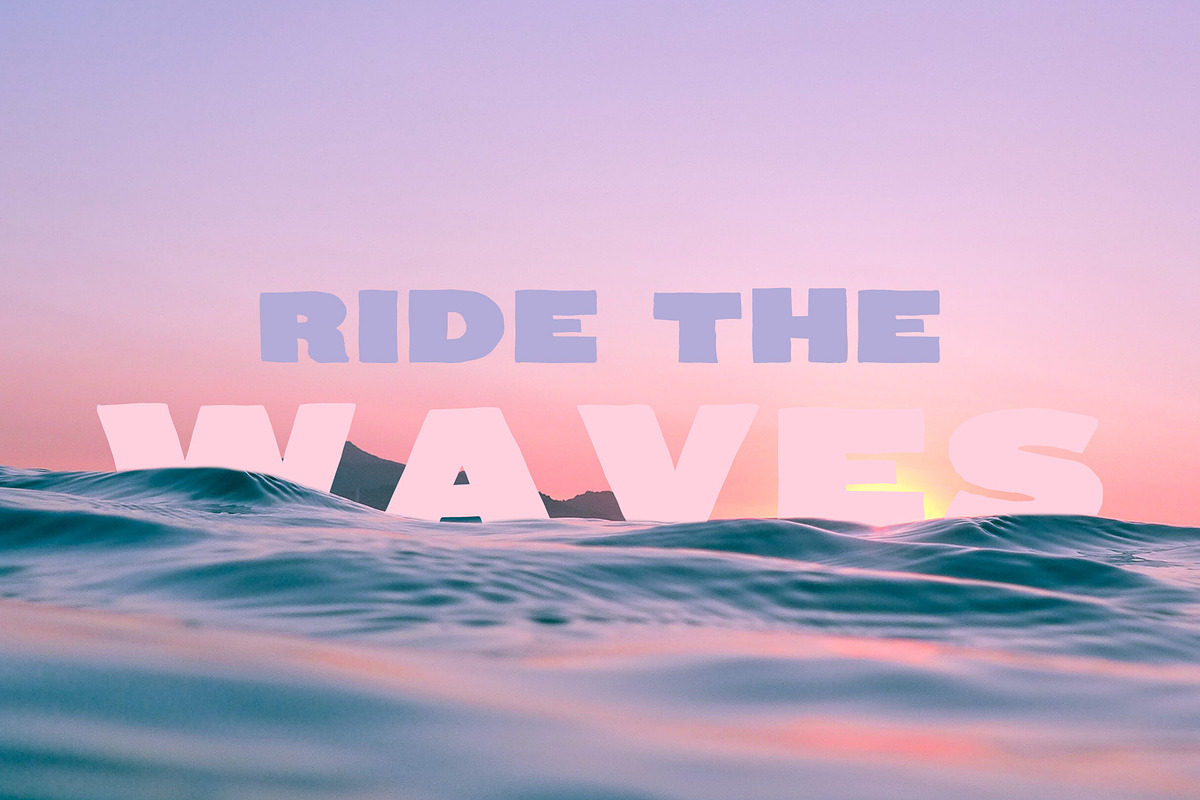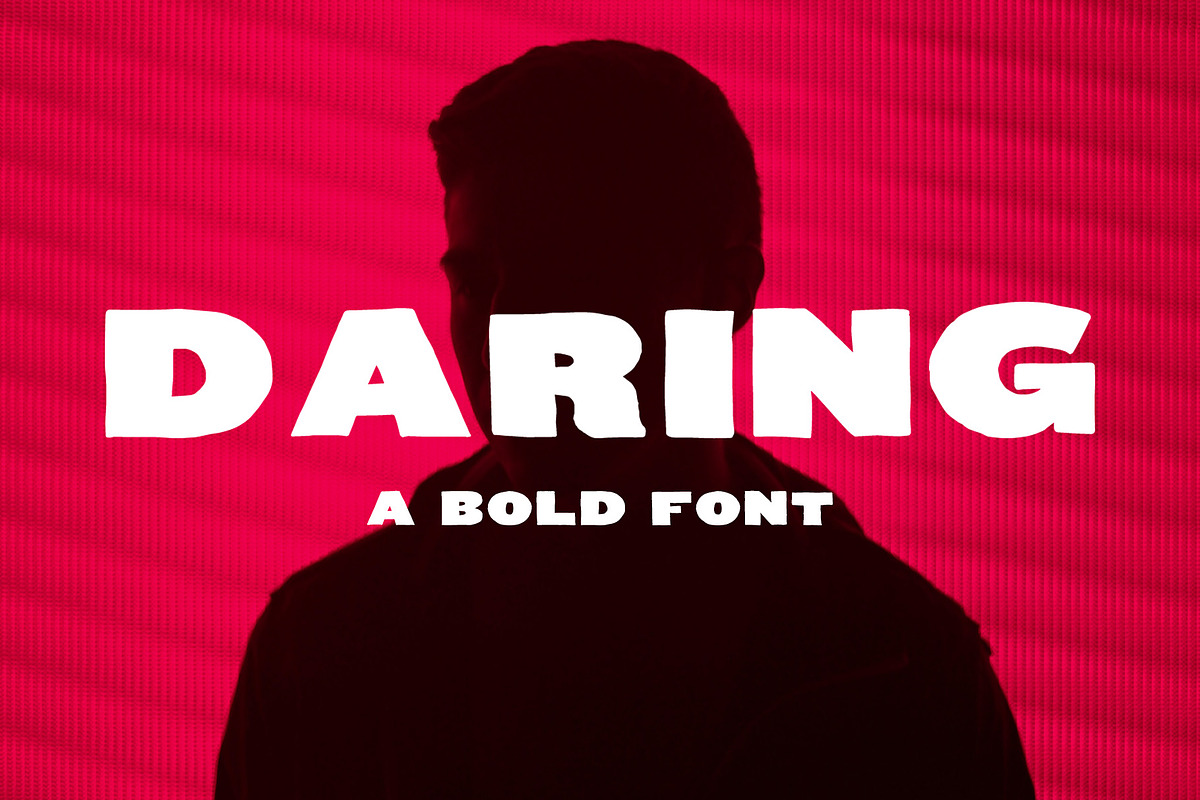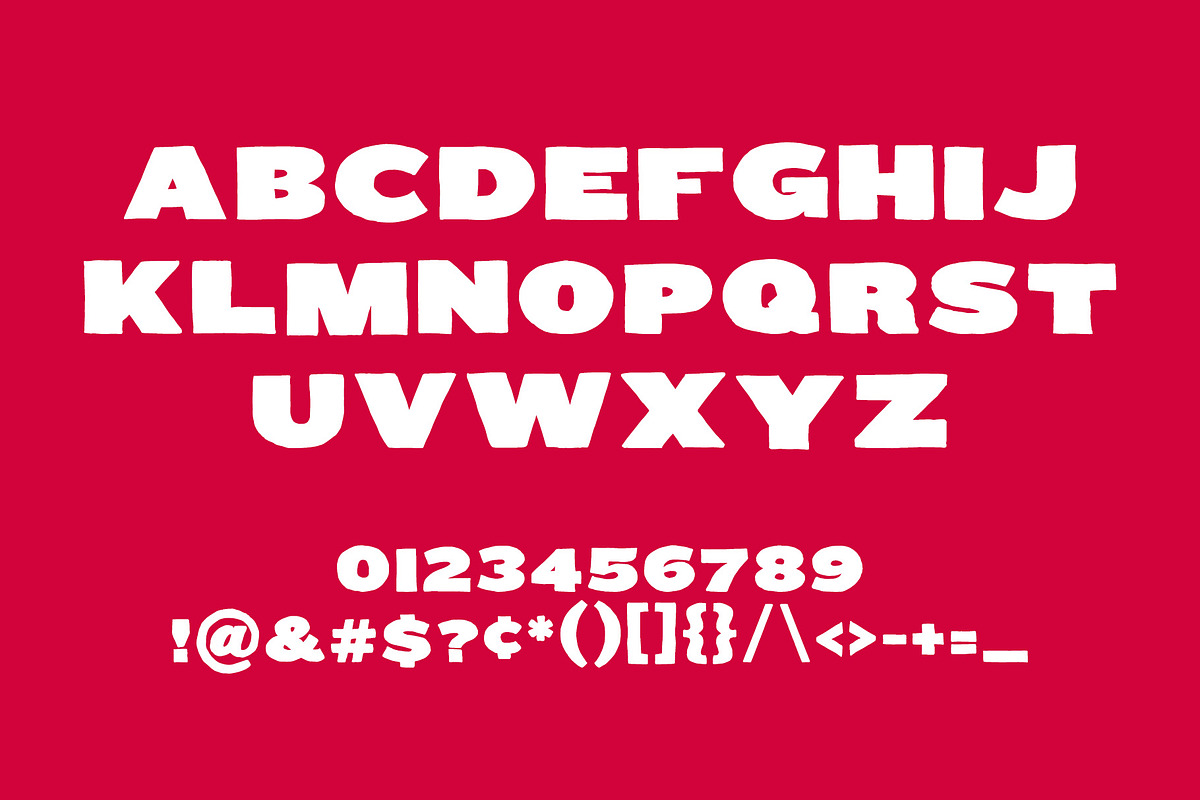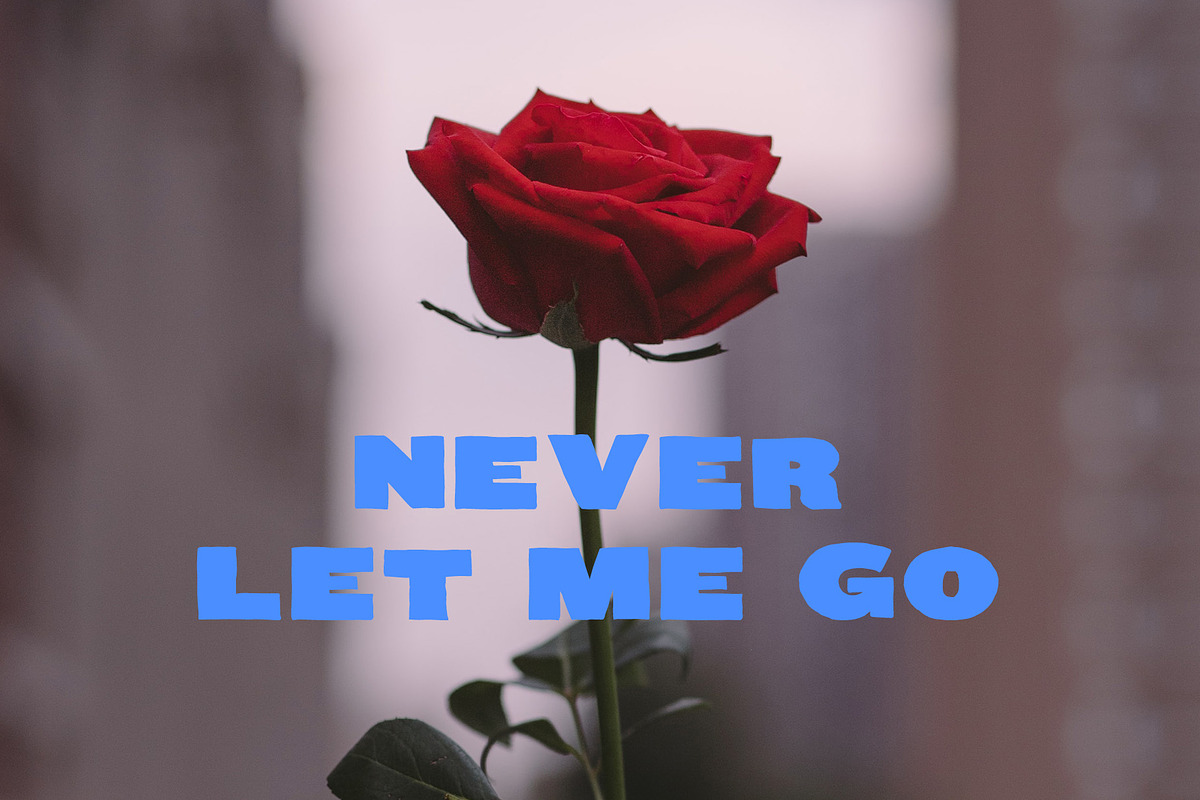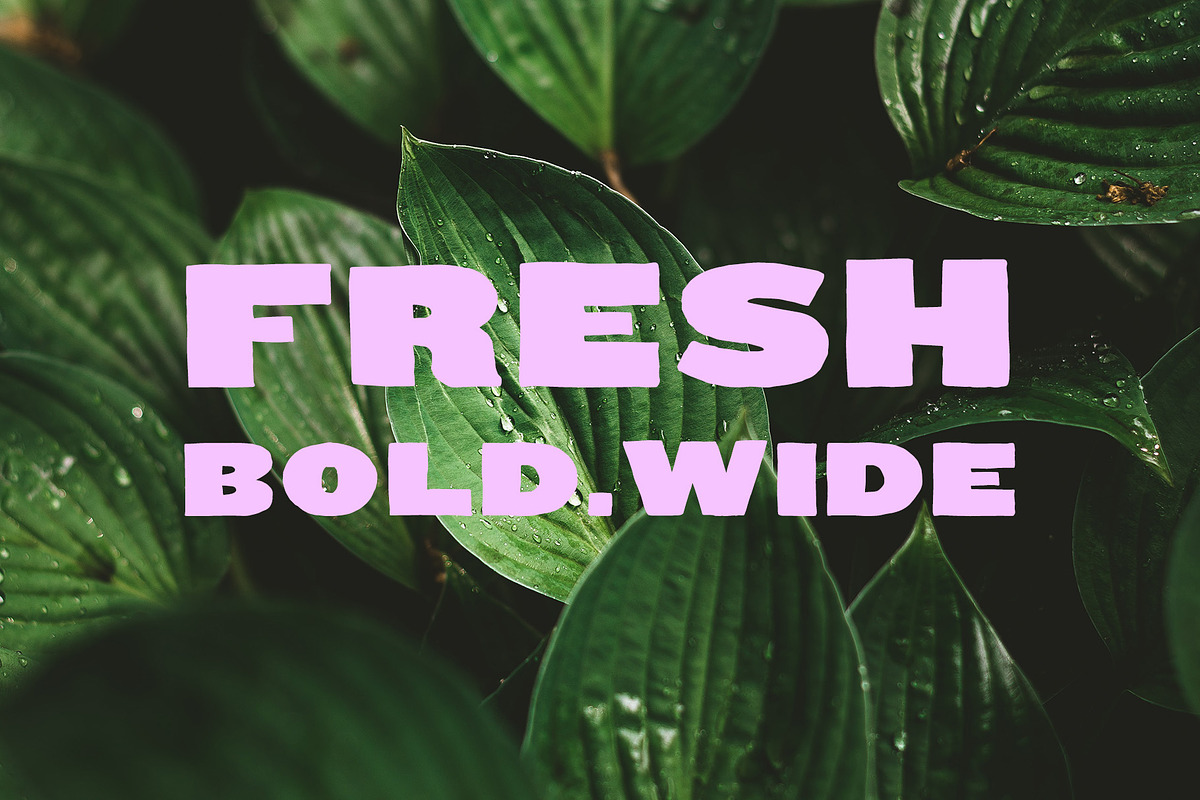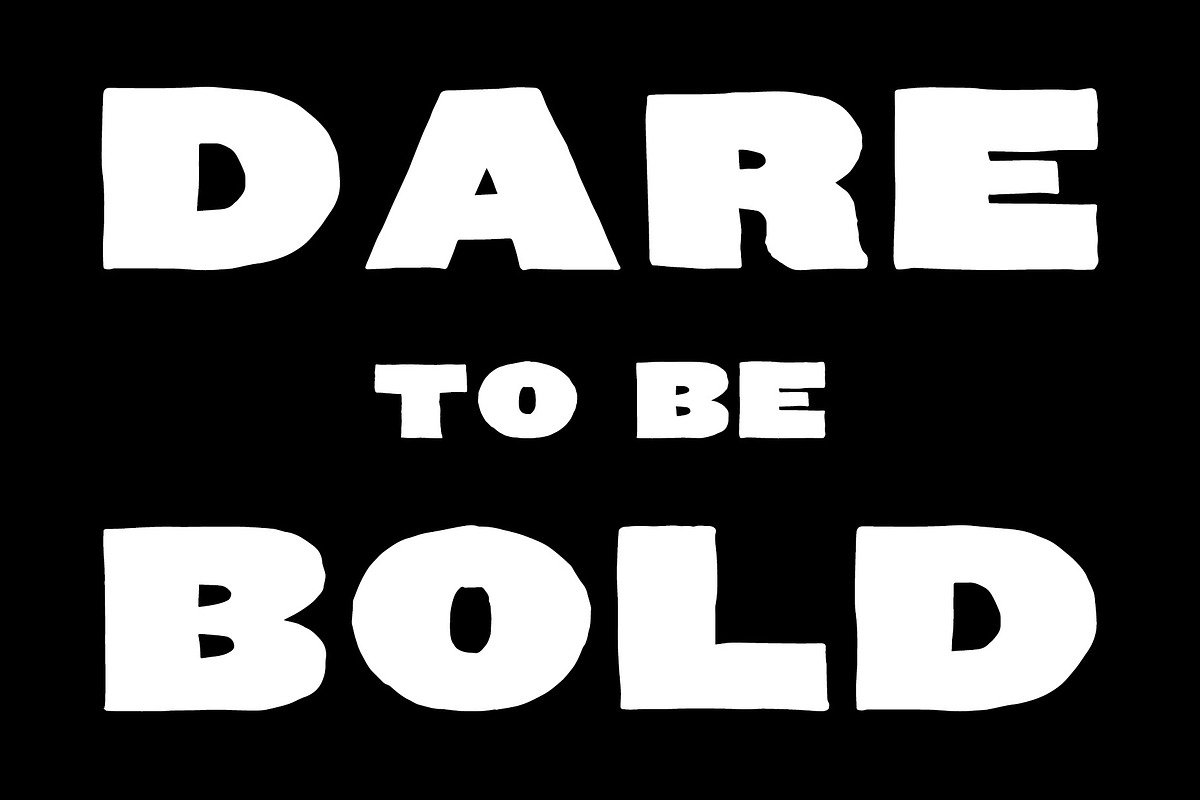
Daring | A Bold Font
Introducing DARING A brand new big, bold, wide display font
Uppercase letters only
Daring | A Bold Font by Monica Galvan fits naturally into Branding, posters, packaging, typography.